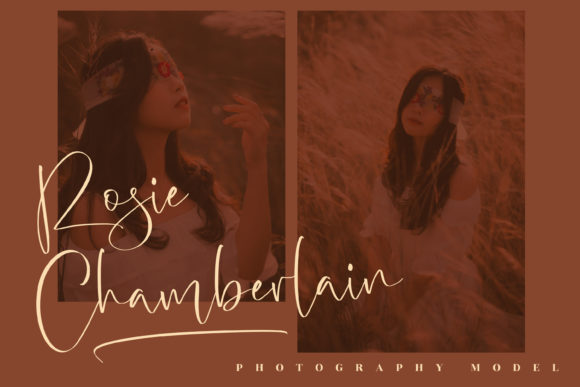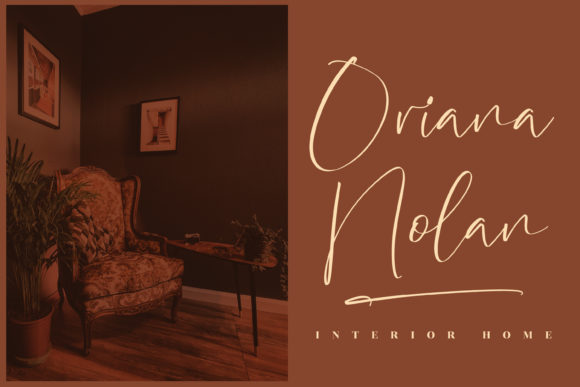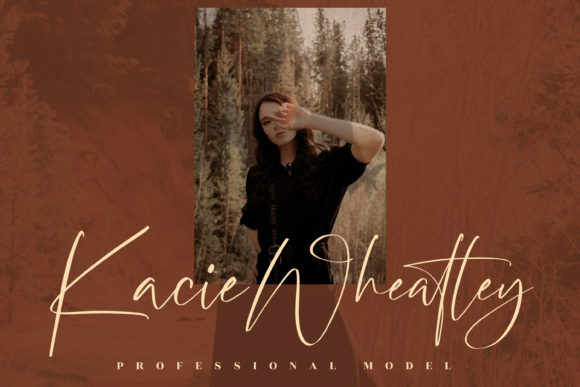
Introduction to Patrick Rastelo Font
There’s something magical about stumbling upon the perfect font for a creative project. The thrill of the hunt, the excitement of seeing your design come to life – it’s a feeling that’s hard to beat. For designers, the right font can be the difference between a good design and a great one. And today, we’re excited to introduce you to the Patrick Rastelo Font, a stunning script font that’s sure to elevate your next design project.
With its elegant, thin lettering and gracious curves, the Patrick Rastelo Font is the perfect choice for designers looking to add a touch of sophistication to their work. And the best part? This beautiful font is free to download, making it a valuable resource for designers on a budget.
Whether you’re working on a high-end branding project or a personal creative endeavor, the Patrick Rastelo Font is sure to be a valuable addition to your design arsenal. With its transparent background and PUA encoded features, you’ll have access to all the glyphs and swashes you need to create stunning designs with ease.
Key Features of Patrick Rastelo Font
- Unique, hand-drawn design with a mix of modern and vintage elements, perfect for creative projects.
- High-quality font with a transparent background, ideal for designers who need a clean and minimalist look.
- Designed by a professional typographer, this font offers exceptional legibility and readability, even at small sizes.
- Perfect for use in headings, titles, and body text, adding a touch of sophistication and elegance to any design.
Honest Review: Patrick Rastelo Font
I recently stumbled upon the Patrick Rastelo Font while searching for a design resource to elevate my creative project. Initially, I was drawn to its unique and elegant aesthetic, which made it perfect for a variety of design applications. After experimenting with it, I was pleased to find that it offers a lot of versatility.
Here are some things that work well with the Patrick Rastelo Font:
- ✨ High-quality design: The font’s crisp and clean lines make it a great choice for both print and digital designs.
- ✨ Transparent background: This feature allows for seamless integration with images and other design elements.
- ⚠️ Limited font variations: While the font itself is well-designed, it would be great to have more variations to suit different design needs.
- ⚠️ No support for non-standard characters: This can be a challenge when working with languages that require specific characters.
Overall, the Patrick Rastelo Font is a solid design resource that can add a touch of elegance to your creative project. While it has its limitations, it’s definitely worth considering for your next design endeavor.
The Patrick Rastelo Font is commonly used in creative projects, such as logo designs, business cards, and social media graphics. It’s also used in academic and educational materials, such as presentations and posters. The font’s high-quality design makes it perfect for any project that requires a professional and elegant look.